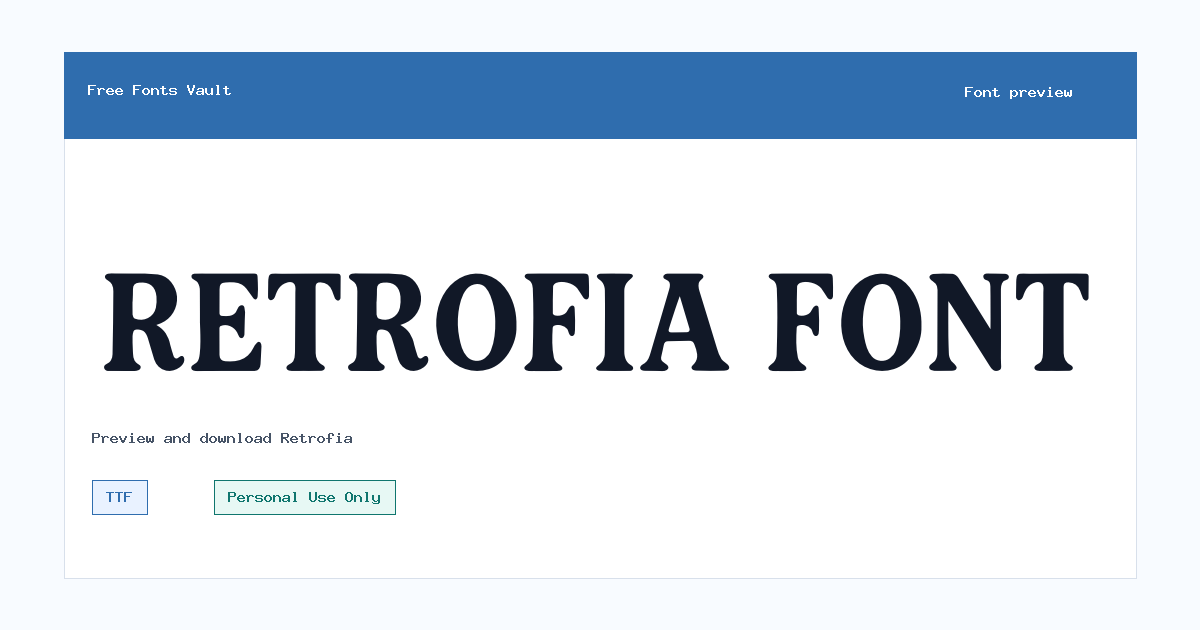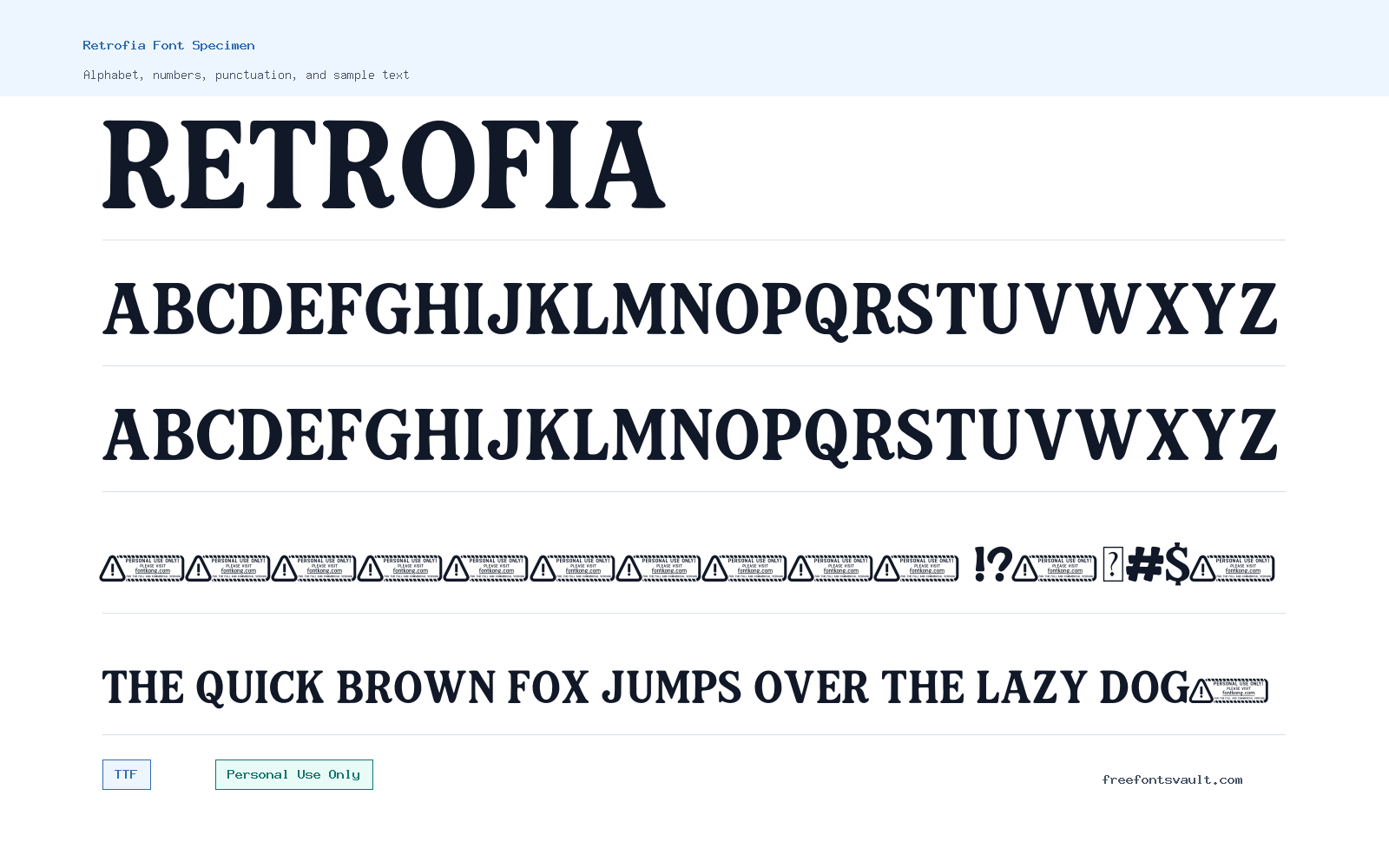
Retrofia
Retrofia is a retro-style display font from Kong Font. It is best approached as a font for short, attention-focused text, where visitors can test its character shapes in the preview before using it in a design draft.
About Retrofia Font
For design work, Retrofia will usually make the most sense in places where a font can carry personality without needing to handle long paragraphs. Try it in the preview with brand names, event titles, short slogans, playlist covers, retro poster headings, packaging mockups, and web hero text. Avoid judging it only from the alphabet sample; type your real words, check uppercase and lowercase combinations, and look at spacing around letters such as A, V, T, R, O, and W if those appear in your design. If the font feels too decorative for body copy, pair it with a quiet sans serif or simple serif that keeps the supporting text easy to read.
• Retro-style display character suitable for short titles, headings, and visual mockups.
• Single regular style listed, making it simple to test but less flexible than a full multi-weight family.
• Personal poster designs, retro title graphics, and display lettering experiments.
• Logo concept drafts and brand mood boards where the final licensing still needs to be handled.
• Web hero mockups, social media graphics, playlist art, and event title layouts.
• Short text previews where the font’s style can stand out without reducing readability.
Use Retrofia where the text is short and meant to be noticed. Test it at the actual size you plan to use, because decorative or retro display fonts can look strong in large headings but become harder to read in small captions. For posters and logo drafts, check the spacing between the exact letters in your title rather than relying on a generic preview. For web mockups, consider using Retrofia only for large hero words or image-based concepts unless you have confirmed the license and webfont rights. Pair it with a clean supporting typeface for menus, descriptions, prices, dates, or any text that needs quick reading.
What kind of font is Retrofia?
Retrofia is identified as a retro font. It is best treated as a display font for headings, names, titles, posters, and visual concepts rather than long reading text.
What should I pair with Retrofia?
Pair it with a simple sans serif or readable serif for supporting text. Let Retrofia handle the main title, then keep descriptions, dates, menus, and paragraphs in a quieter font.